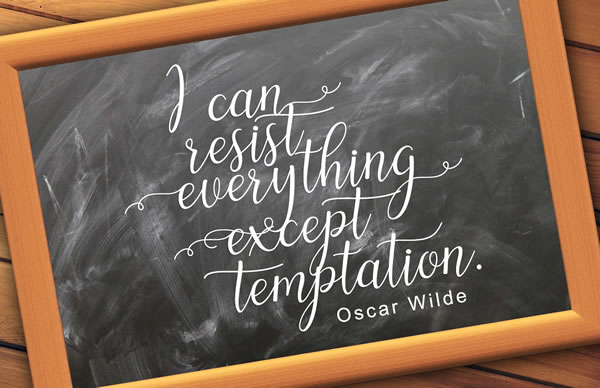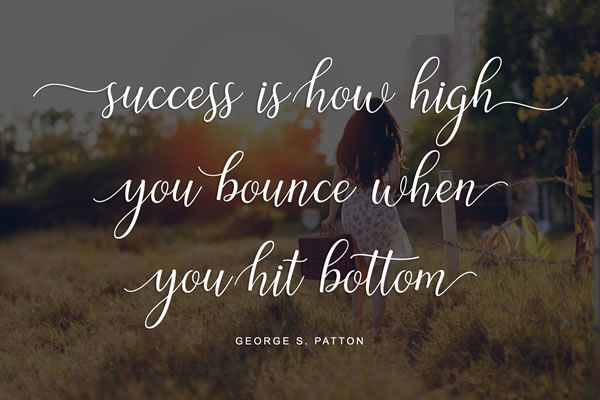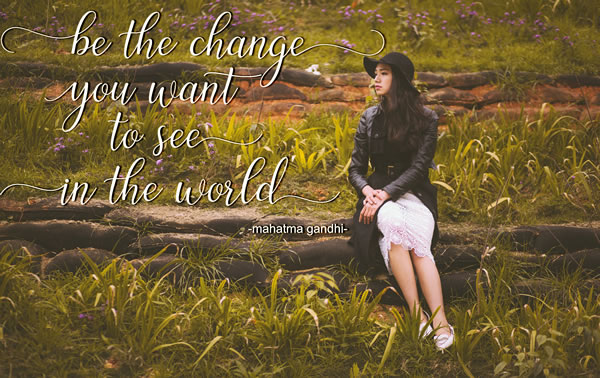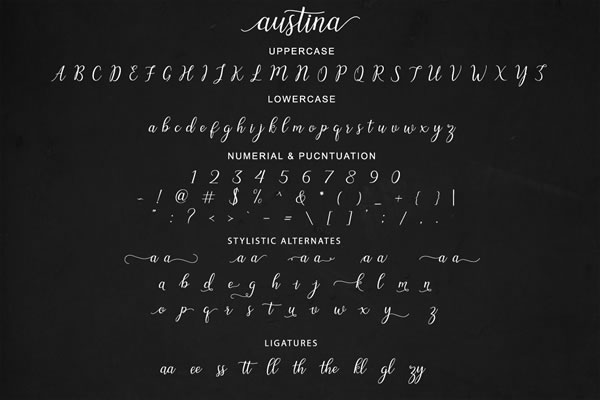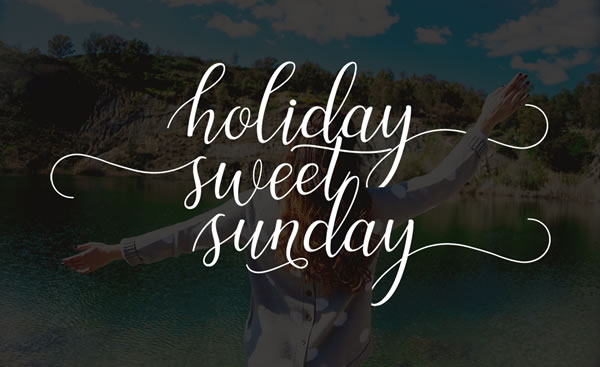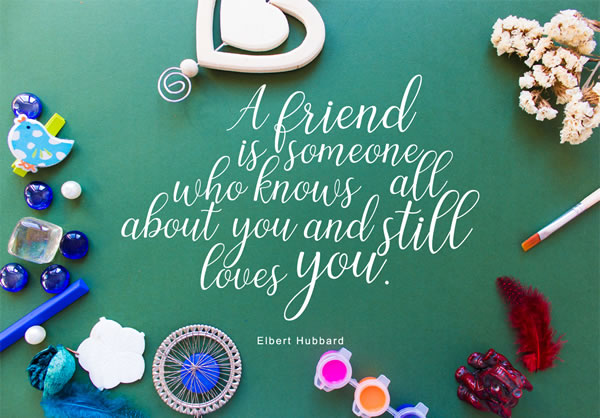
The Austina Font: A Fresh Handlettered Delight
I’ll never forget the moment I stumbled upon the perfect font for a client project. I was working on a branding campaign for a trendy craft brewery, and I needed a font that was both playful and sophisticated. After hours of scouring the internet, I finally found Austina Font – a fresh, handlettered font that featured 530 unique glyphs. ✨ It was love at first sight!
So, what makes Austina Font so special? Let’s dive into the good stuff:
- ✨ Unique Glyphs: With 530 glyphs to play with, you’ll never run out of creative options.
- ✅ Handlettered Charm: Austina Font has a warm, organic feel that’s perfect for branding, packaging, and marketing materials.
- ✅ OpenType Features: This font comes with a range of OpenType features, including stylistic alternates and ligatures.
Of course, no font is perfect, and Austina Font has a few quirks:
- ⚠️ Limited Multilingual Support: While Austina Font has a wide range of glyphs, its multilingual support is limited.
- 🤔 Some Glyphs Can Be Finicky: A few glyphs may require some tweaking to get them to work perfectly.
The Story Behind Austina Font
Austina Font was designed with love and care by a talented type designer. The story goes that the designer was inspired by the beauty of handlettering and the need for fresh, modern fonts in the design world. With Austina Font, they aimed to create a font that was both elegant and playful – perfect for creative projects.
| Font Name | Austina Font |
| Author | Amarlettering |
| Is Austina Font suitable for body text? | While Austina Font is beautiful, it’s best suited for titles, headings, and short paragraphs. |